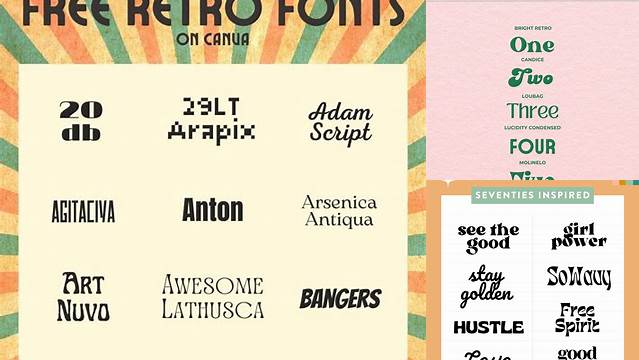
Free Retro Canva Fonts: Your Ultimate Guide
Hey everyone! If you're here, you're probably looking to add a touch of vintage flair to your designs, and that means one thing: retro fonts. And, guess what? You're in luck because we're diving deep into the world of free retro Canva fonts. Forget those boring, run-of-the-mill typefaces – we're talking about the groovy, the nostalgic, and the oh-so-stylish fonts that'll make your designs pop. So, buckle up, because we're about to embark on a journey through some amazing fonts, how to find them, and how to make the most of them in your Canva projects. This guide is all about helping you uncover those hidden gems, use them effectively, and create stunning visuals that scream retro chic without spending a dime.
1. Unveiling the Allure of Free Retro Canva Fonts
Okay, let's be real. There's something undeniably cool about retro fonts. They instantly transport us back to a specific era – think the vibrant hues of the 70s, the sleek lines of the art deco period, or the bold, playful vibes of the 80s. They’re not just fonts; they’re storytellers. The right retro font can evoke a mood, create a sense of nostalgia, and make your design stand out. Whether you're designing a poster, creating social media graphics, or sprucing up a website, a well-chosen retro font can make all the difference. Plus, the best part? You can find a ton of fantastic options for free on Canva. Why pay for fonts when you can access an awesome library of retro styles without spending a cent? Using these free retro Canva fonts adds personality and character to your designs, giving them a unique edge. They're perfect for adding a touch of vintage charm to your modern creations. From bold, blocky fonts that scream the 70s to elegant, script fonts reminiscent of the 50s, the possibilities are endless. It's all about mixing and matching to find the perfect vibe for your project. Think of them as the secret sauce that transforms your ordinary designs into something truly eye-catching. So, get ready to explore a world of typography where the past meets the present!
Beyond just aesthetics, free retro Canva fonts offer a level of versatility that's hard to beat. You can use them for headlines, body text, logos, or even decorative elements. They work great in different contexts, whether you're creating something for personal use or for a client. With the right font, you can really nail the perfect feel for your project. The availability of free fonts on Canva gives you the freedom to experiment and discover your style. These fonts can make your designs stand out from the crowd, making them more memorable and effective. This allows you to achieve professional-looking results without any financial commitment. So, let's dive in and unlock the creative potential of retro fonts!
2. Spotting the Best Free Retro Canva Font Styles
So, what are some of the coolest free retro Canva font styles you can get your hands on? There's a whole range of options, from the classic to the quirky. First up, let's talk about serif fonts. These are the ones with those little feet or strokes at the end of each letter. Think of fonts like Playfair Display or Libre Baskerville – they have a timeless, elegant, and slightly vintage feel. They're perfect if you want your design to look sophisticated with a touch of nostalgia. Then, we've got sans-serif fonts, which don't have those little feet. These tend to be more modern but can still pull off a retro vibe. You can look for bold, chunky fonts that mimic the style of the 70s and 80s. Think of something like Bebas Neue, which has a great vintage feel. You could also check out fonts inspired by Art Deco, such as Montserrat, which exudes a classic, geometric appeal. For a more playful feel, script fonts are the way to go. These fonts mimic handwriting and add a touch of elegance and personal charm. The classic retro script fonts are beautiful, but you can also find cool, modern variations. Use them sparingly to add a personal touch to your designs. If you want a touch of 80s flair, check out some block fonts. These are bold, geometric, and full of personality. They were extremely popular in the 80s, so they're perfect if you want to add a bold punch to your creations.
When exploring retro fonts on Canva, keep an eye out for fonts that evoke a specific era. This way, you can add a touch of vintage appeal to your designs. Consider looking for fonts with a groovy, psychedelic feel, which work best for the 70s vibes. Some fonts have unique textures that bring extra depth to the overall look. Remember that a good font can really set the tone and personality of your designs. When choosing your retro fonts, focus on readability and how they complement your overall design. The best fonts will match your project's unique needs and personality. It’s essential to experiment with different font pairings to find what looks best. Don't be afraid to combine different styles to create a unique and eye-catching look. Always consider the purpose and the mood you want to convey when selecting a font. This helps you create engaging and memorable designs!